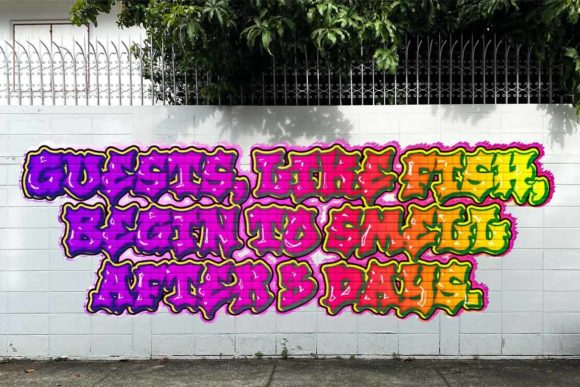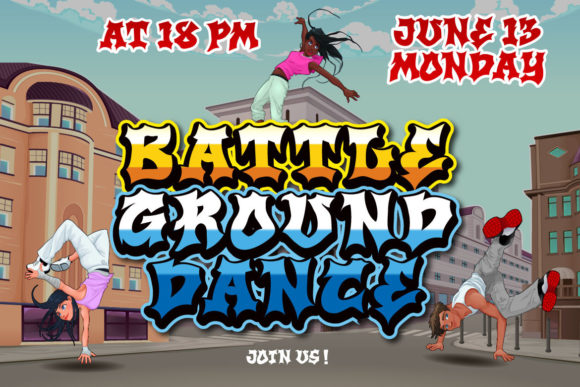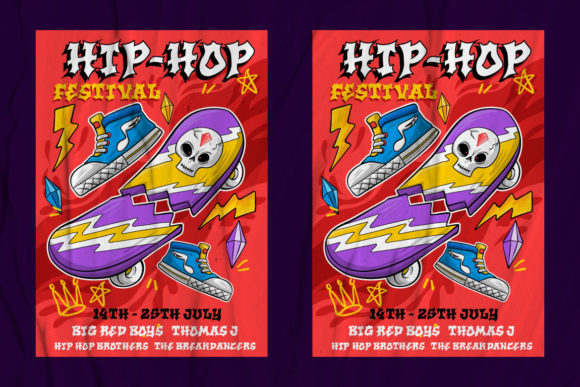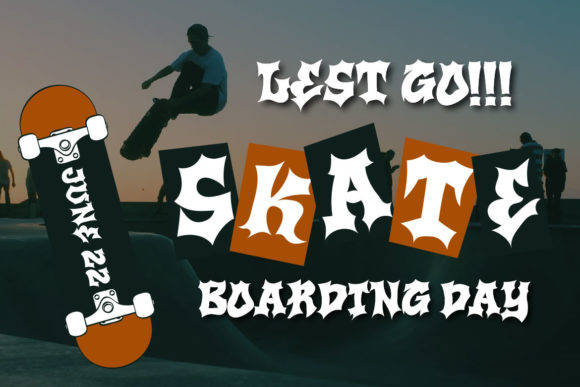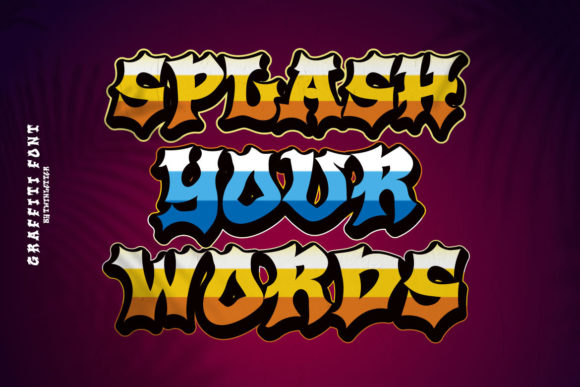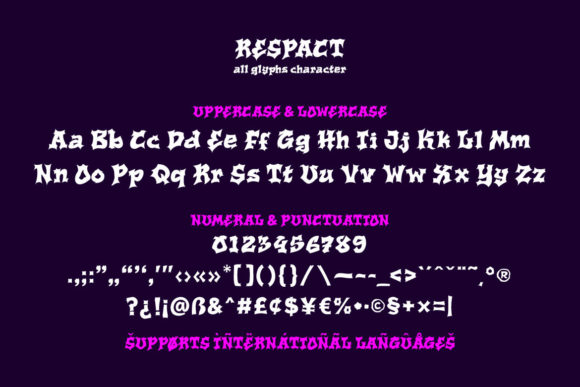
Introduction to Respact Font
Respact is a bold, uniquely designed and street styled display font.
it works well on a variety of design ideas that require a strong touch, such as tattoos, covers, labels or branding .
Key Features of Respact Font
Why Choose Respact Font?